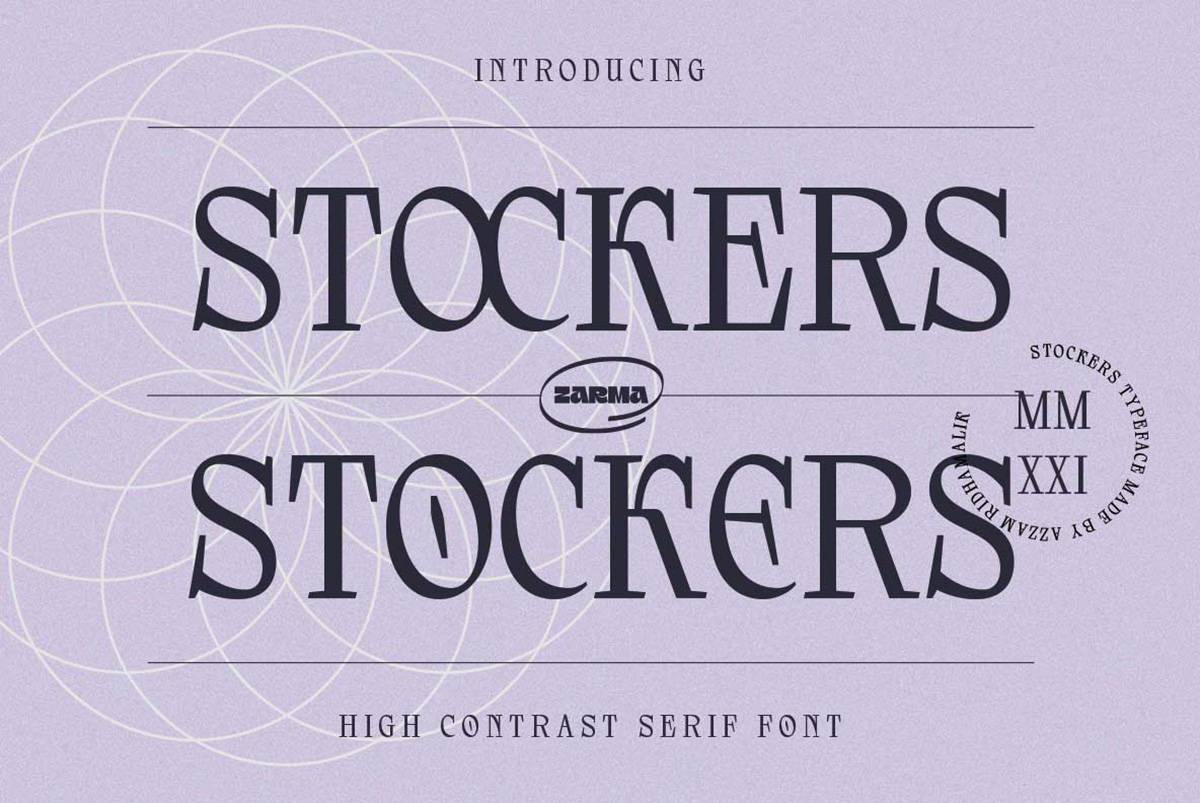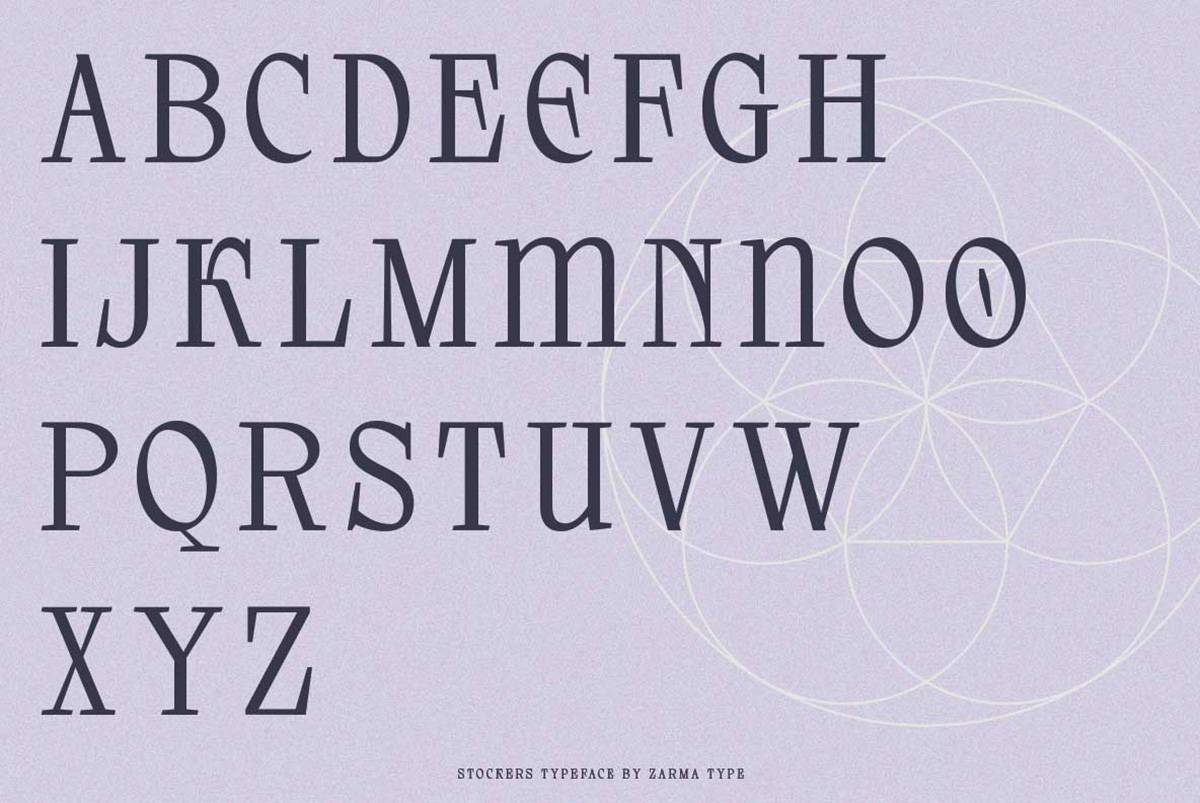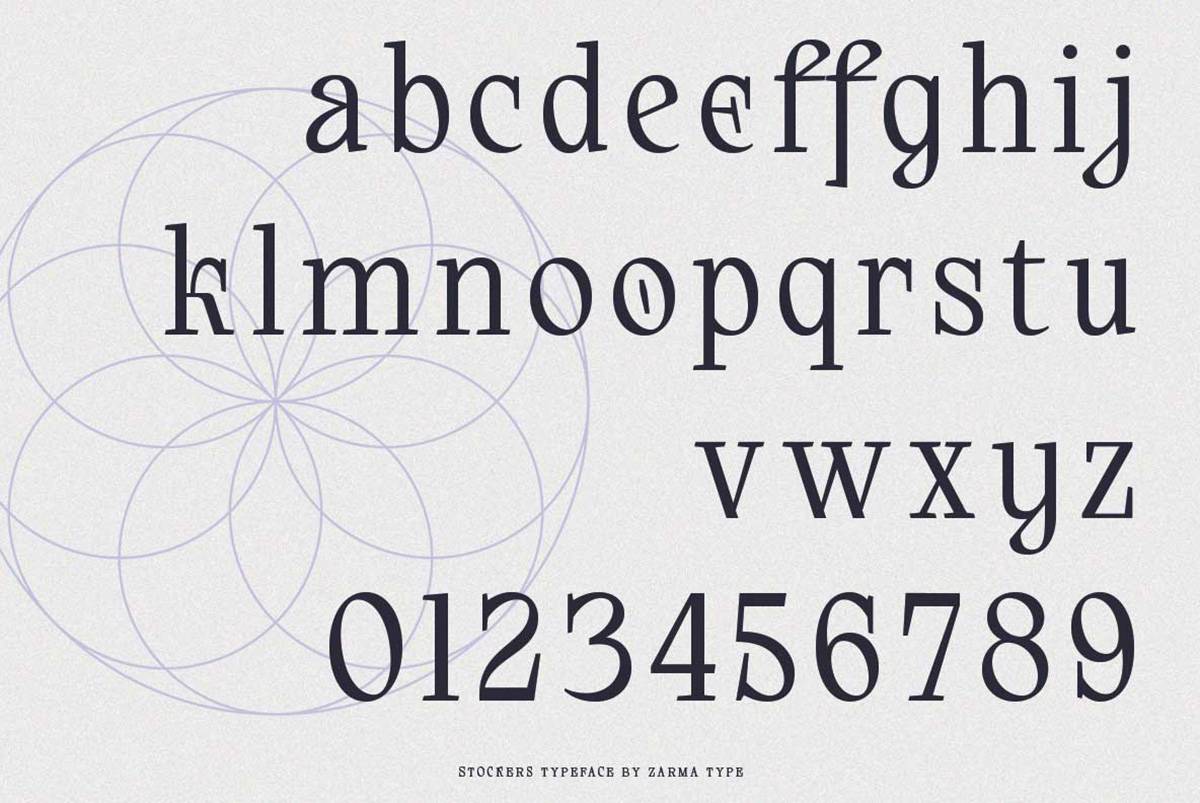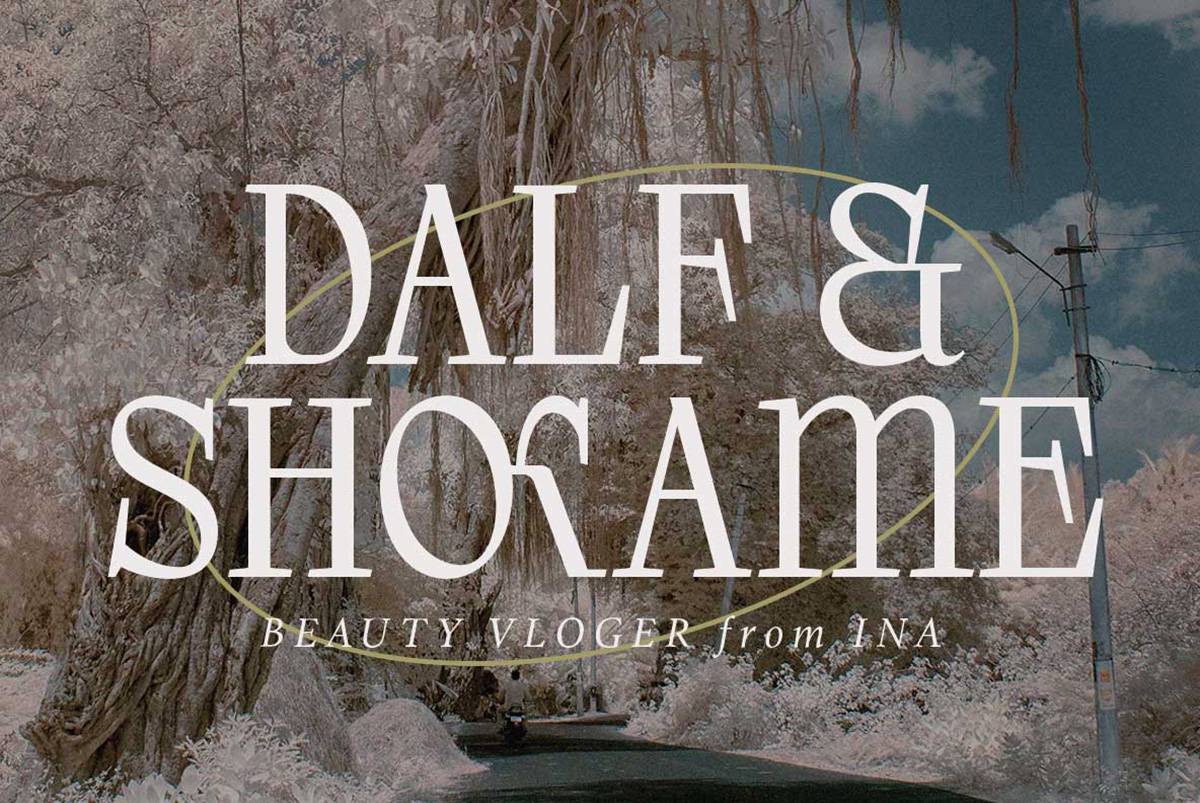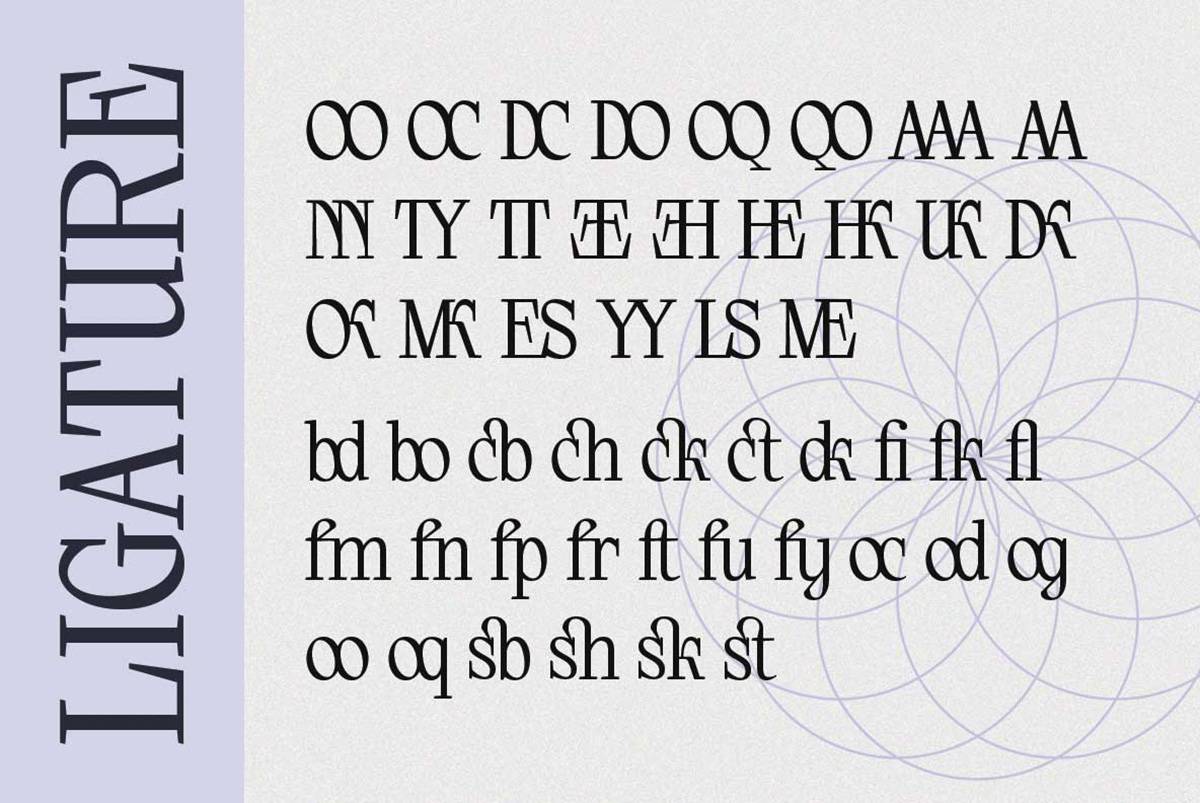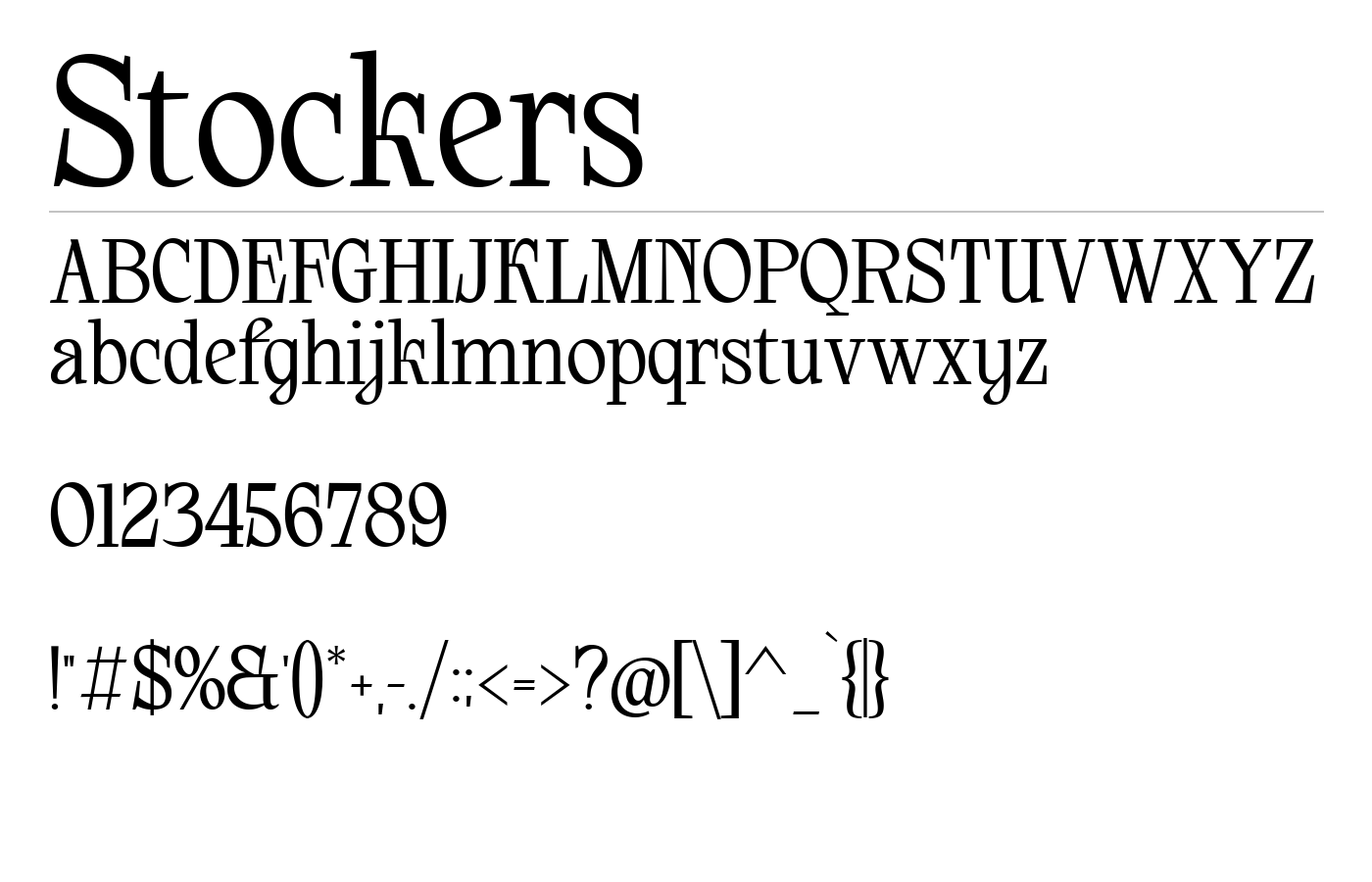
Stockers is a distinctive serif font with a tall, narrow structure and subtle contrast between its thick and thin strokes, giving it a modern yet slightly quirky character. Its sharp, angled serifs and unique letterforms, like the stylized lowercase "g" and the swash-like tail of "Q," add personality while maintaining readability. This font works well for editorial headlines, fashion branding, and creative projects that want to convey elegance with a contemporary edge.
Stockers Font
About Stockers Font
| Font family | Stockers Font |
| Designer | Azzam Ridhamalik |